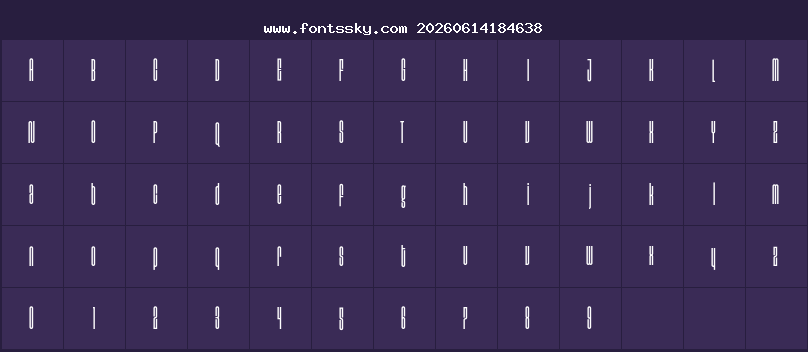
Disclaimer Plain Preview
• Font Name: Disclaimer Plain
• Designer: Boris Bonev
• Manufacturer: Fontfabric LLC
About Disclaimer Plain.otf
Disclaimer Plain.otf is a modern, elegant sans-serif font designed for ultimate readability and visual harmony. Perfect for branding, headlines, web design, and print materials.